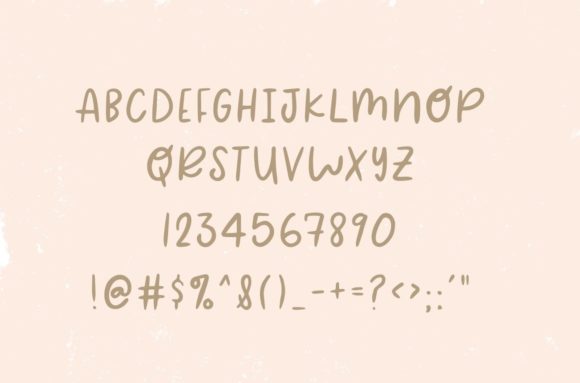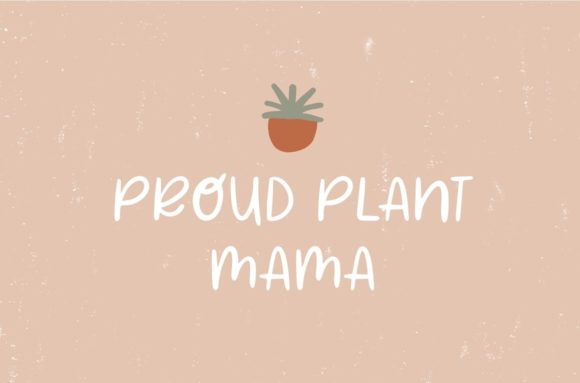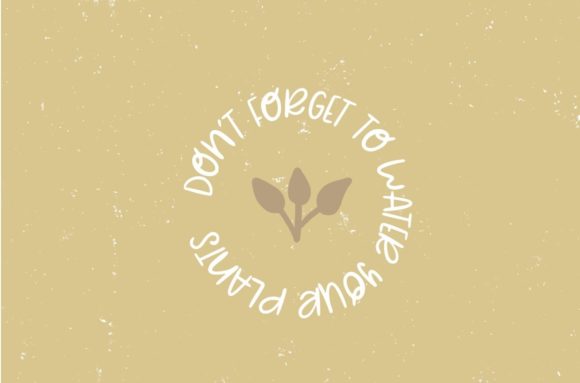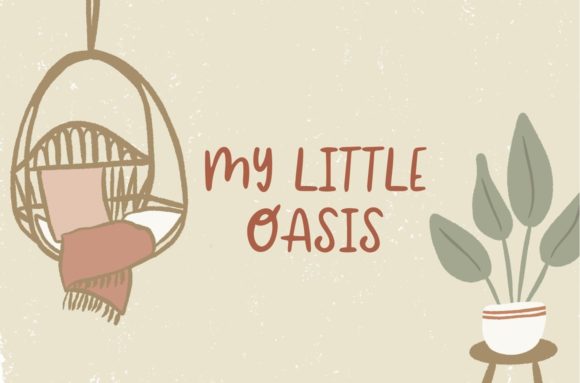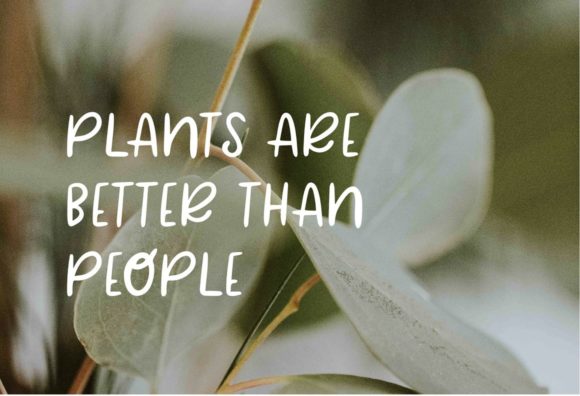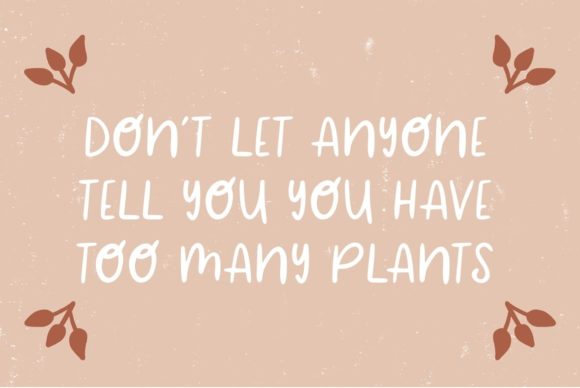
Introduction to Plant Mama Font
Do you remember the moment when you stumbled upon that perfect design resource that transformed your entire creative project? For many designers, that moment is a treasure to behold. For us, it’s when we discovered the charming Plant Mama Font. This playful handwritten font has become a go-to for adding a personal touch to our next big project.
Whether you’re crafting a heartfelt birthday card, branding your small business, or labeling a new product line, the Plant Mama Font is the perfect companion. Its whimsical feel and high-quality design make it a valuable asset for any creative project. Plus, with a transparent background, it’s easy to layer and style to your heart’s content.
Key Features of Plant Mama Font
- High-quality design resource perfect for creative projects, with a unique and elegant style.
- Transparent background, allowing for seamless integration into various design elements and backgrounds.
- Includes a set of 20 unique characters and symbols, ideal for adding a touch of greenery to your designs.
Honest Review: Plant Mama Font
As a designer, I’m always on the lookout for unique and high-quality design resources to elevate my creative projects. Recently, I came across the Plant Mama Font, and I was excited to give it a try.
Here are some things that I love about the Plant Mama Font:
- ✨ Unique and feminine style that’s perfect for any project that needs a touch of elegance.
- ✨ High quality and well-designed characters that make it easy to read and use.
- ✨ Transparent background, making it easy to use with any image or background.
- ⚠️ Limited character set, which may not be suitable for longer text-based projects.
- ⚠️ May not be suitable for projects that require a more modern or bold font style.
Overall, I’m really impressed with the Plant Mama Font. It’s a great addition to any designer’s toolkit, and I’d definitely recommend it for any project that needs a touch of elegance and sophistication.
Plant Mama Font
The Plant Mama Font is a beautiful, high-quality design resource that can elevate any creative project. This free download features a transparent background, making it perfect for adding a touch of greenery to your designs.
Common Use Cases for Plant Mama Font
The Plant Mama Font is perfect for a variety of design projects, including:
- Greenhouse and garden designs.
- Botanical and floral designs.
- Wellness and self-care designs.